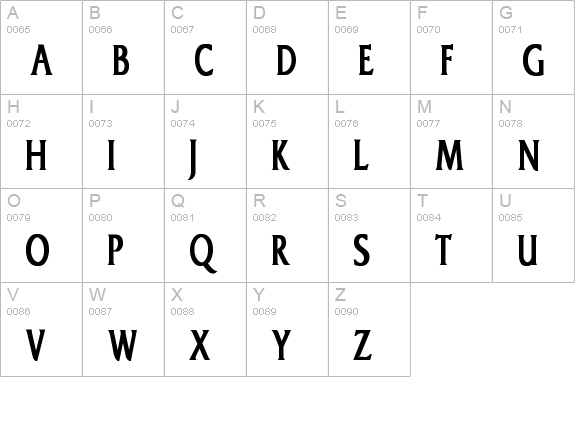
Franz Narrow Bold Font Details
Franz Narrow Bold is a strong, high-contrast, condensed-width variant in the Franz typeface family \xE2\x80\x94 well suited to headlines, attention-grabbing titles, and strong calls-to-action.
The Franz Narrow Bold font exudes confidence and sophistication with its sleek and modern design. Its bold strokes and narrow spacing command attention, making it perfect for headlines, titles, and branding projects. This versatile font strikes the perfect balance between elegance and impact, making it a must-have for designers looking to make a bold statement. And the best part? Franz Narrow Bold is available for free download at FontsMarket.com. Don't miss out on this opportunity to add a touch of flair to your designs without breaking the bank. Download Franz Narrow Bold today and elevate your projects with this stylish and impactful font.